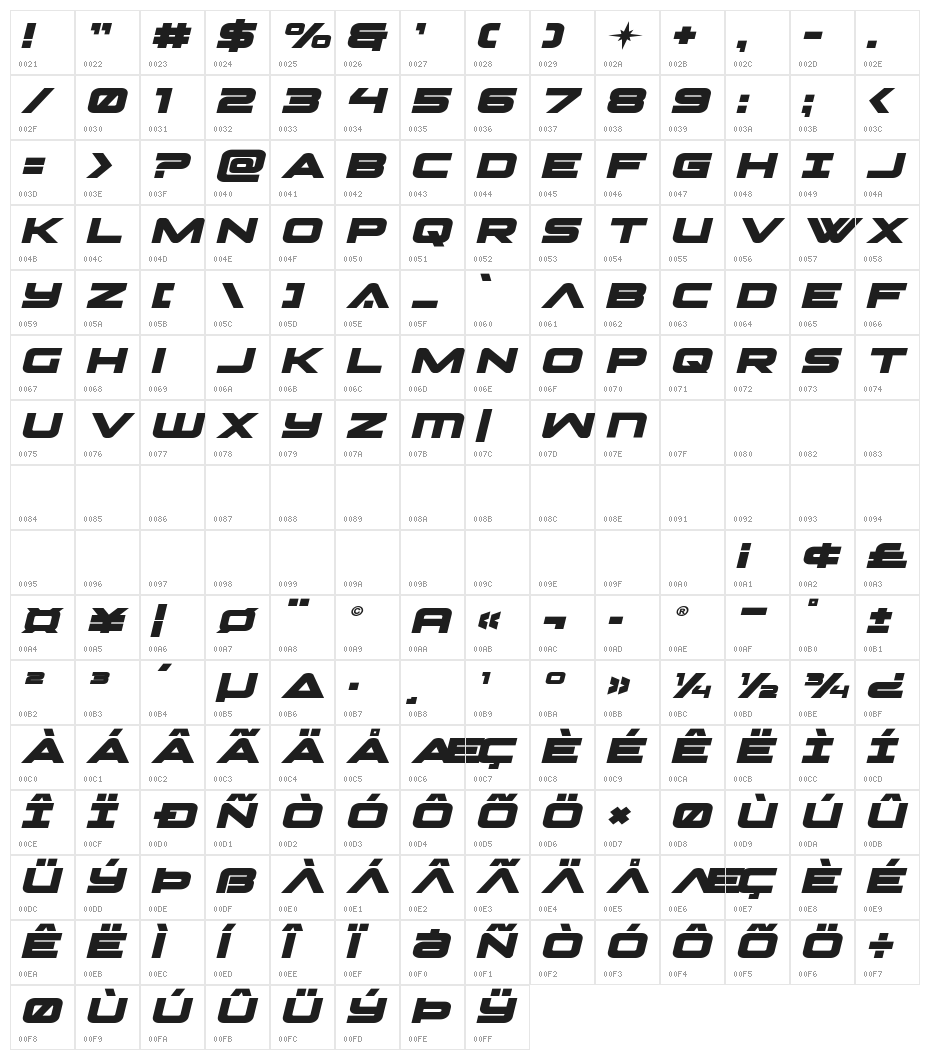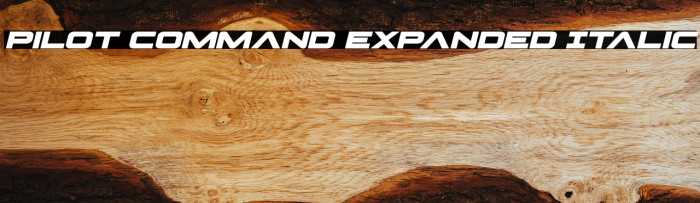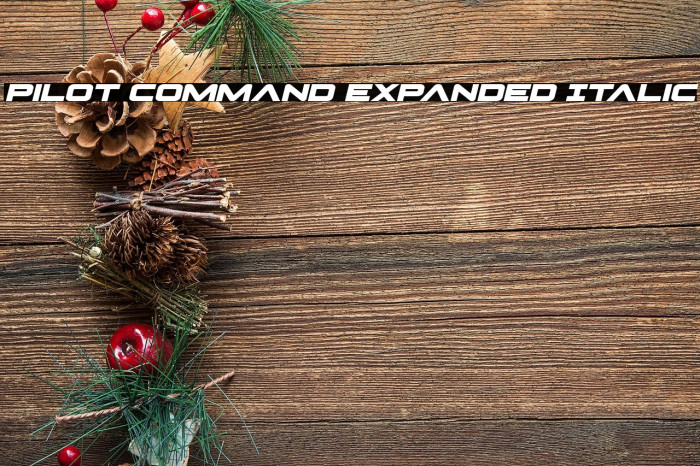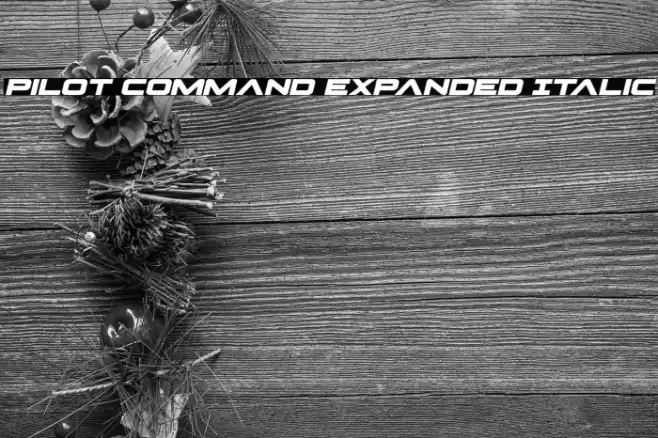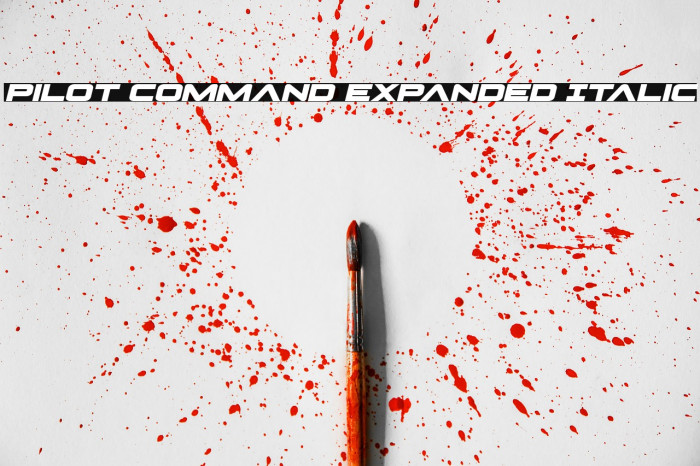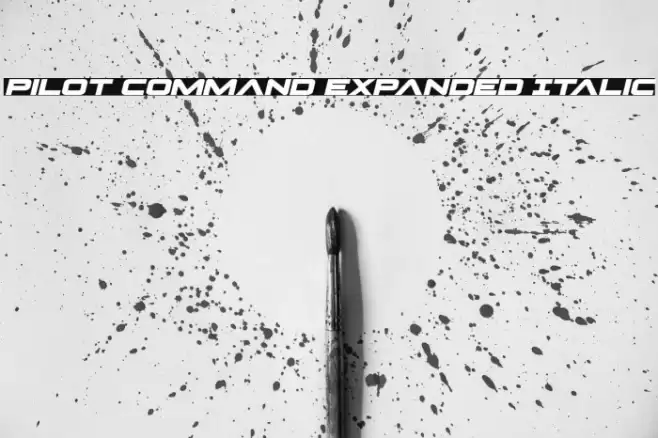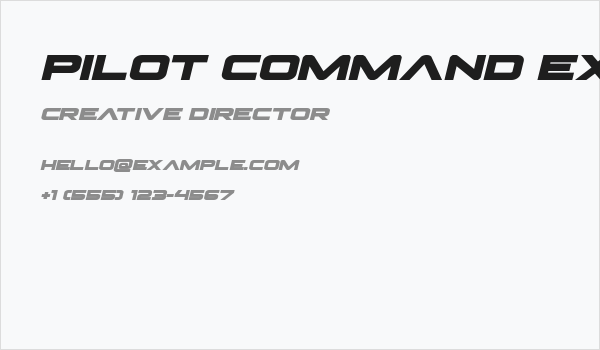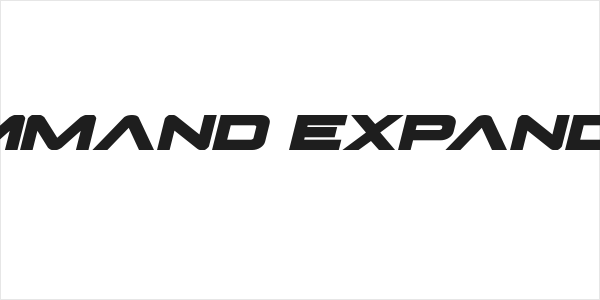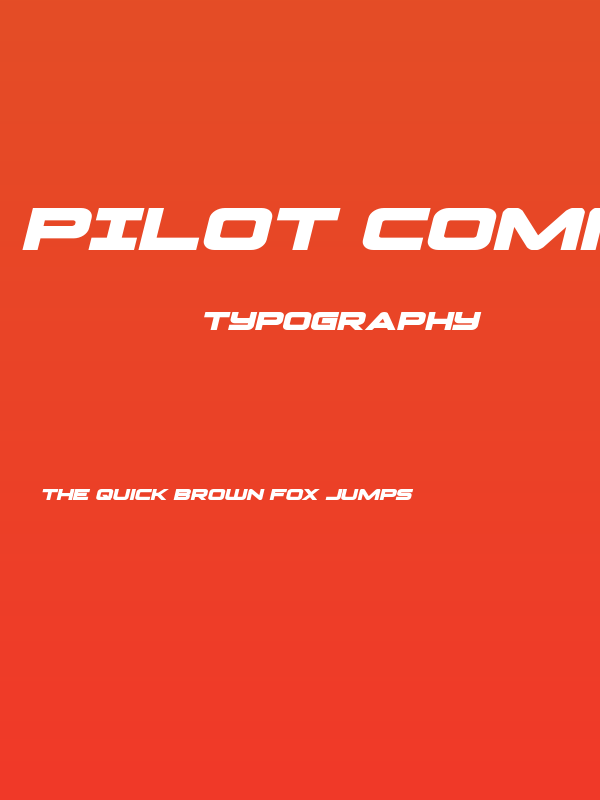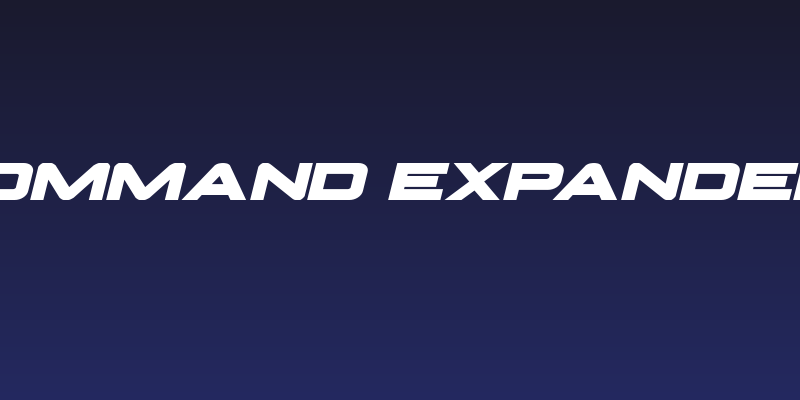
Pilot Command Expanded Italic Font
Pilot Command Expanded Italic Description
This font features a bold and dynamic style with an italic slant, giving it a sense of motion and speed. The characters are expanded, providing a wide stance that enhances readability while maintaining a strong visual impact. The geometric shapes and sharp angles contribute to a modern and futuristic appearance. The uniform stroke width across characters ensures consistency, while the expanded width allows for clear distinction between letters. This font is well-suited for applications that require a bold statement, such as sports branding, automotive designs, or technology-related projects.
| Proposed Projects | Ideal for sports branding, automotive designs, technology-related projects, and dynamic headlines. |